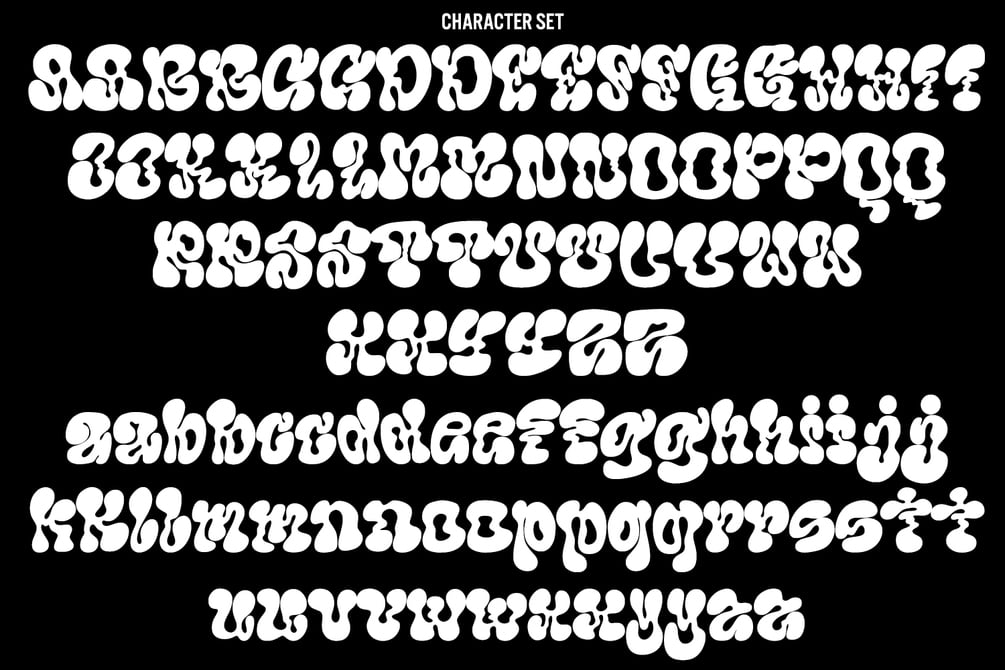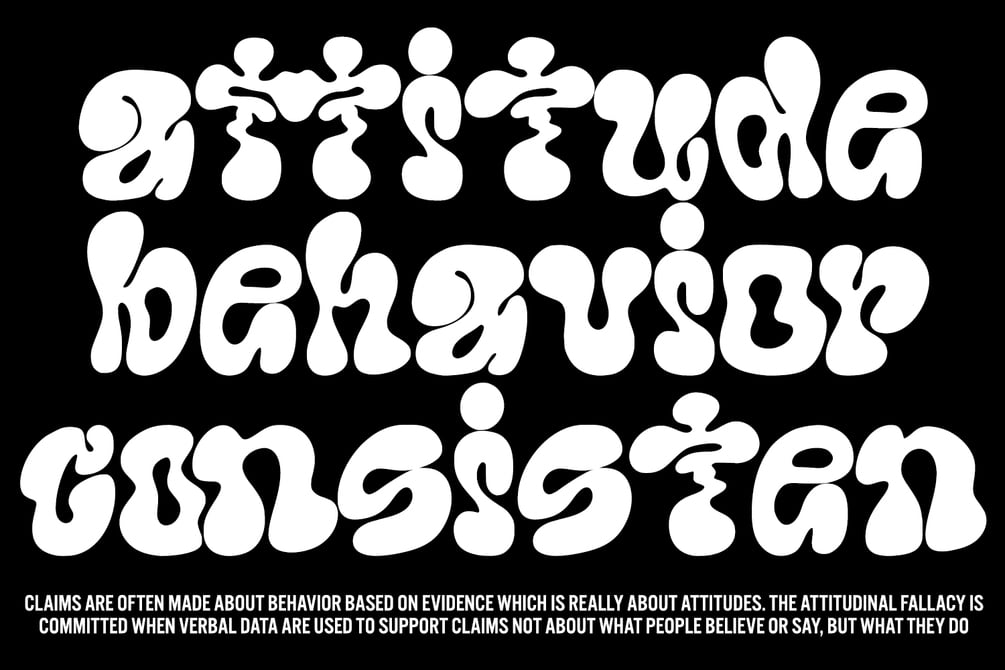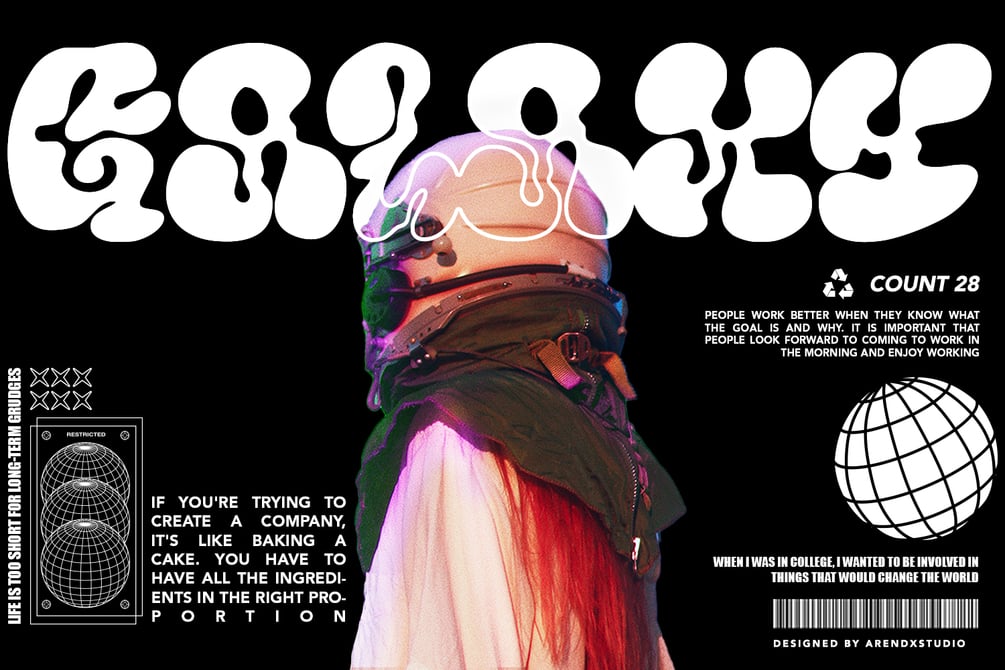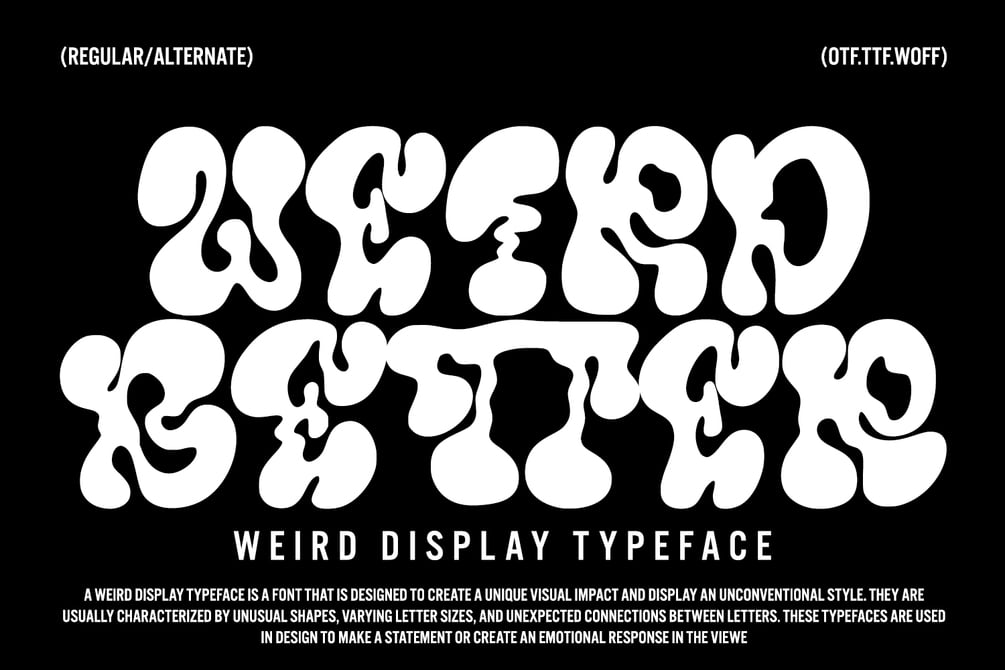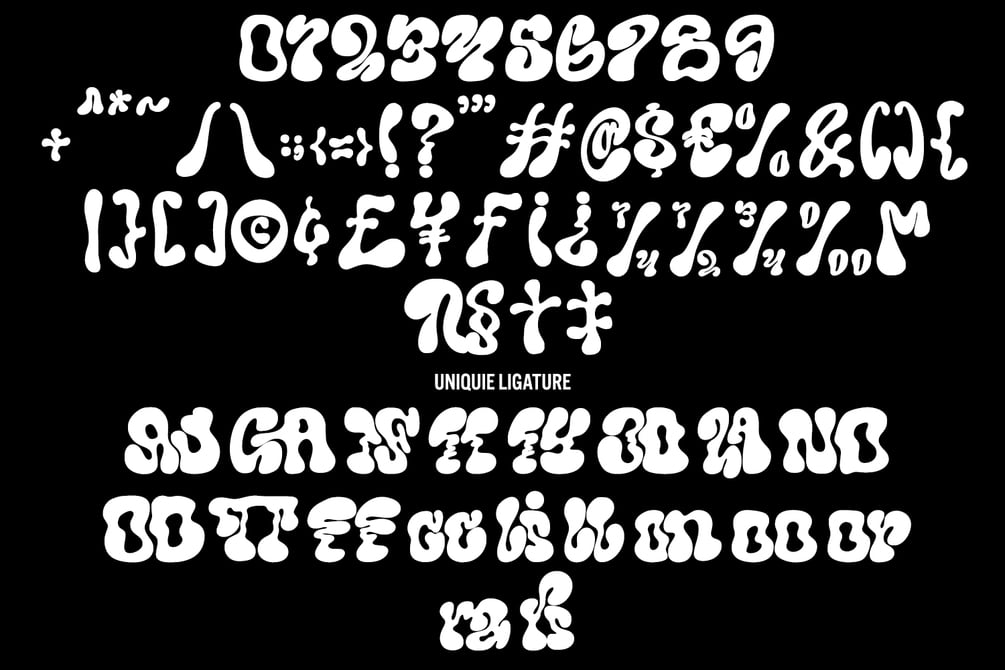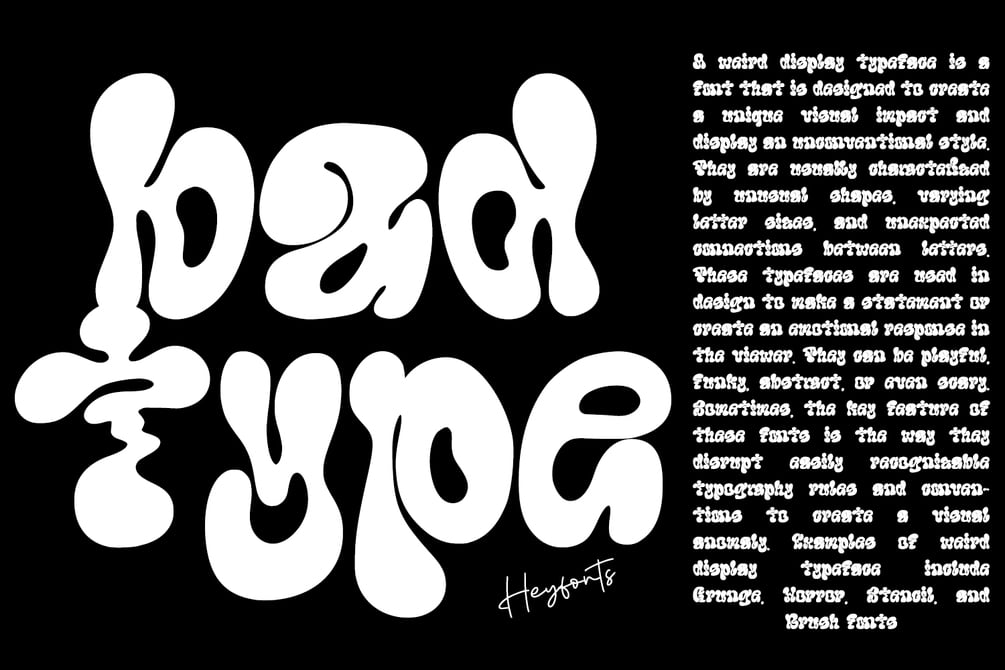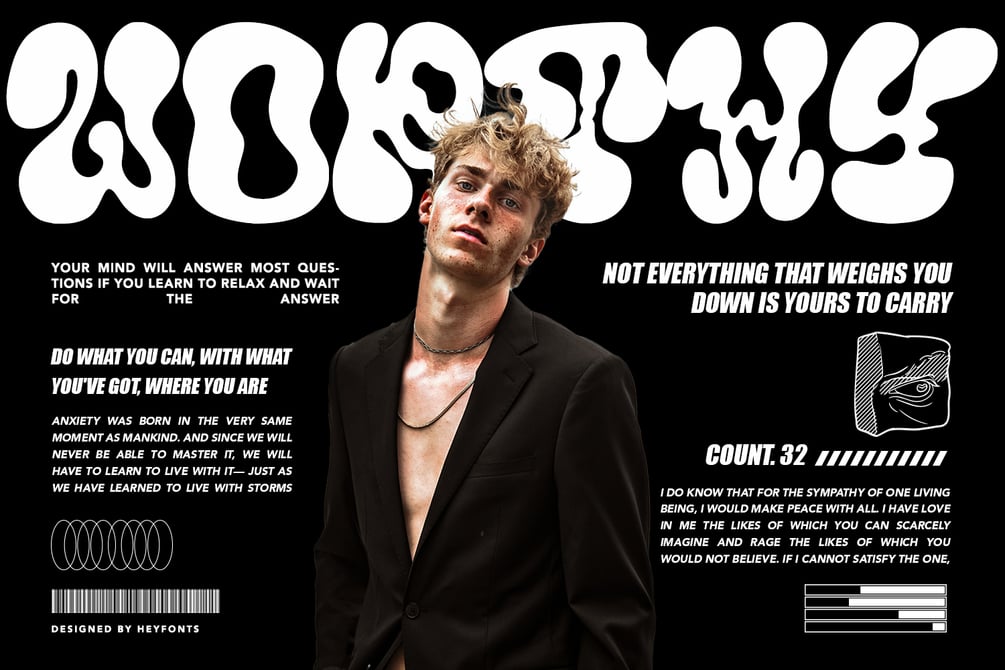
Weird Better - Display Typeface
Weird Better fonts are typography designs that imitate or simulate the appearance of liquids. They are often fluid and dynamic in nature, providing an illusion of movement and flow in letters and characters. Liquid fonts can be created using different design techniques, including hand-drawn illustrations, digital effects, or 3D modeling software.
Some common features of liquid fonts include:
1. Fluid and dynamic appearance: Weird Better fonts have a free-flowing and organic appearance, mimicking the look and movement of liquids such as water, ink, or paint.
2. Variations in thickness: The thickness of the lines and curves in liquid fonts can vary, creating an uneven and organic appearance.
3. Unique design elements: Weird Better fonts can include design elements such as drips, splatters, and bubbles to enhance the liquid effect.
4. Versatile use: Liquid fonts are commonly used in creative designs such as logos, album covers, and advertising campaigns to create an eye-catching and memorable visual impact.
Overall, Weird Better fonts are a unique and creative way to portray text, giving a sense of energy, motion, and fluidity to design projects